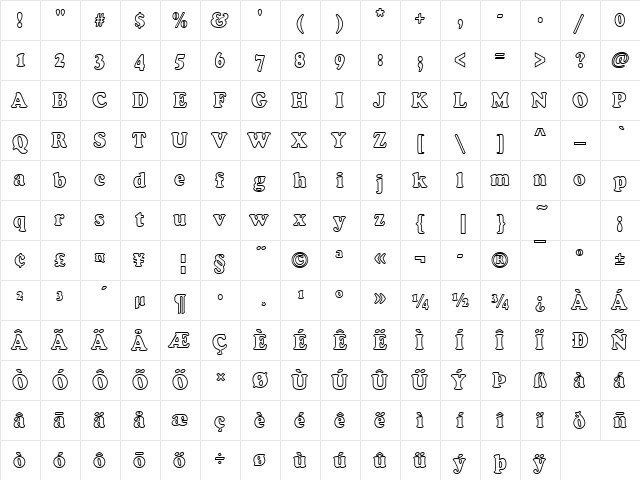
Cooper Becker Black Outl Cond Regular Font Preview
Cooper Becker Black Outl Cond Regular
Design Context for Cooper Becker Black Outl Cond Typeface
Cooper Becker Black Outl Cond offers clean, dependable letterforms without strong stylistic allegiance, making it a practical choice for designers who need flexibility. Its narrow stance lets it pack a punch even in space-constrained designs.